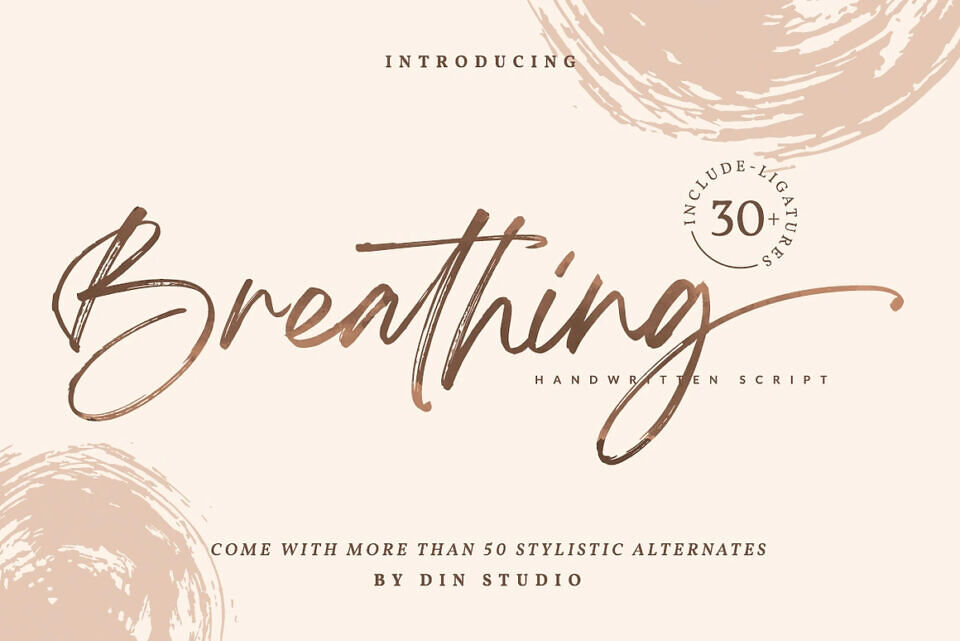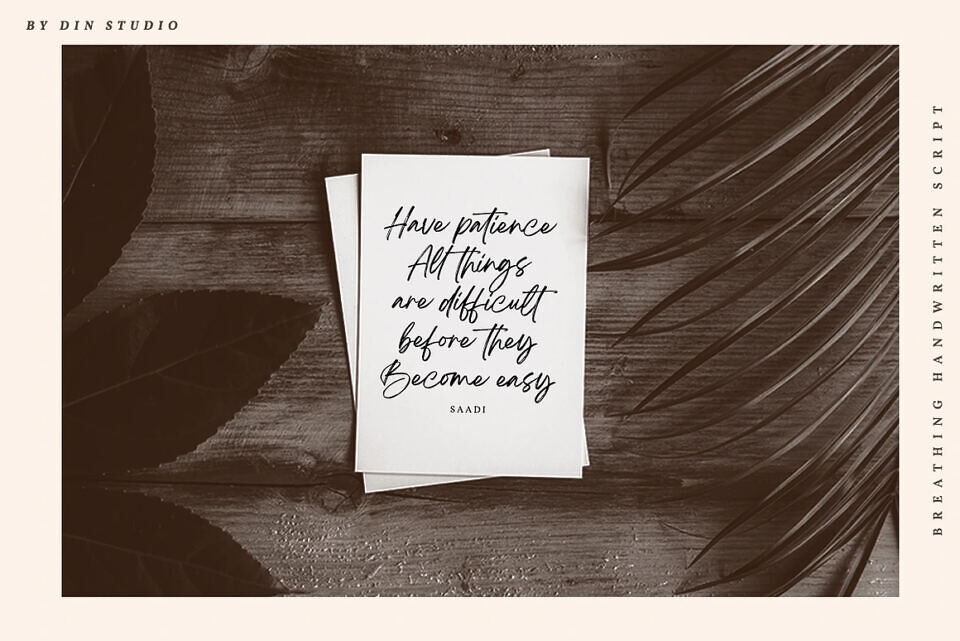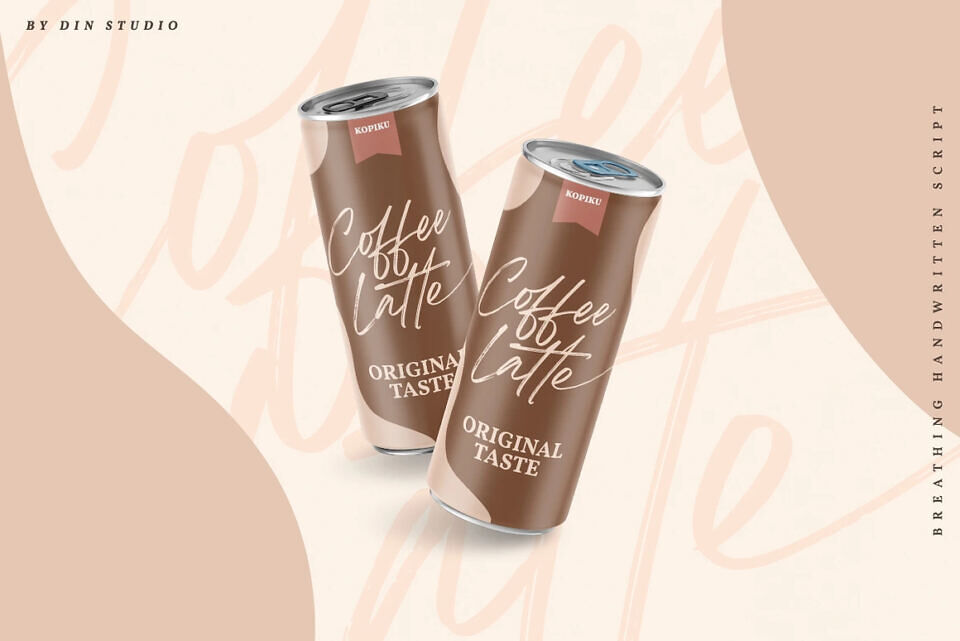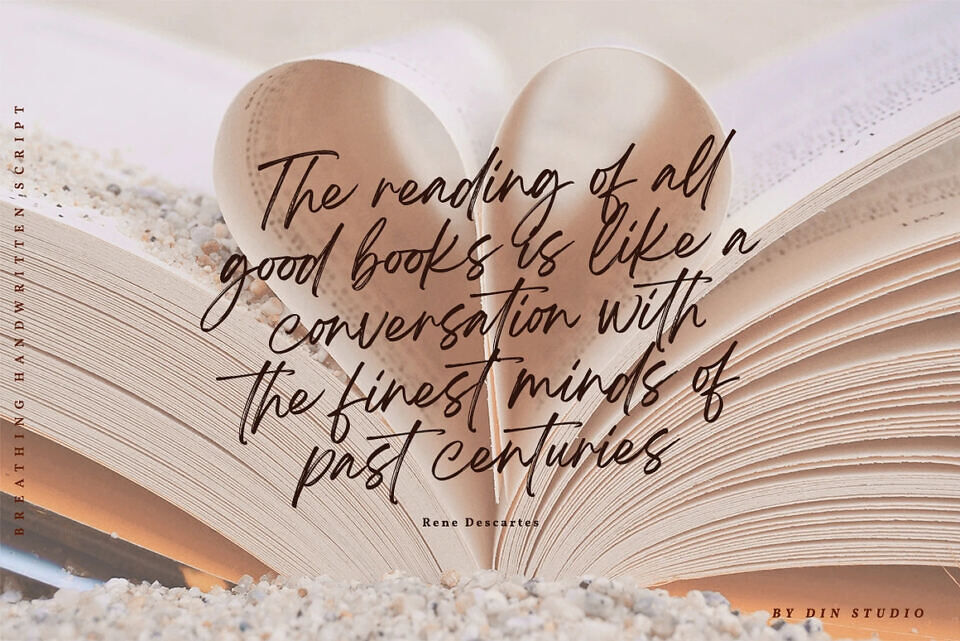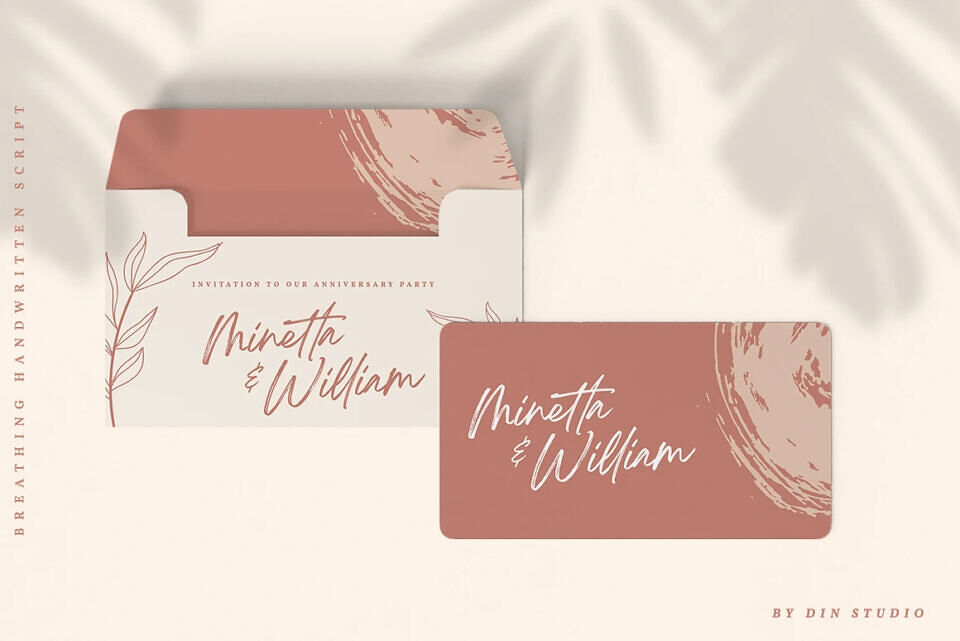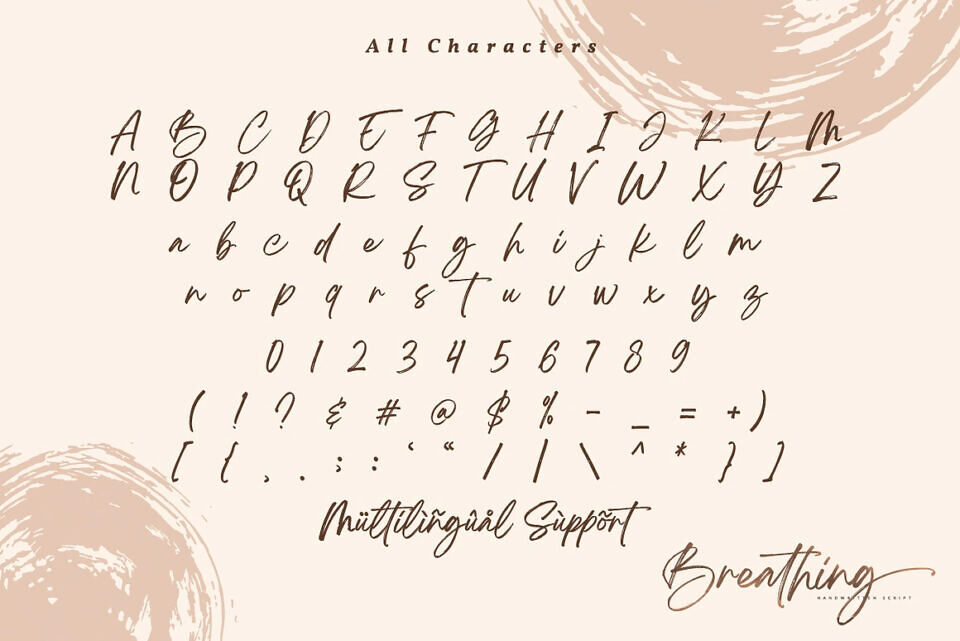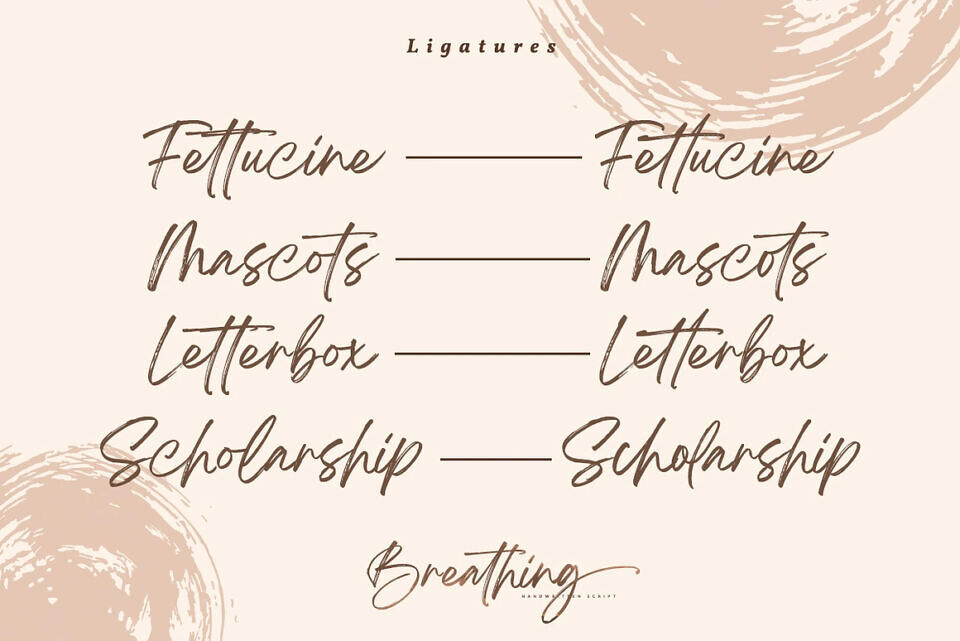
Breathing, a beautiful brush signature font, is made for any professional project branding, such as signature logos, watermarks, wedding invitations, branding, promotions, product packaging, etc. Every letter has a unique and beautiful touch. The full font comes in a rough and solid version.
Breathing brush font includes a full set of handwritten uppercase and lowercase letters, numerals, punctuation, and ligatures.